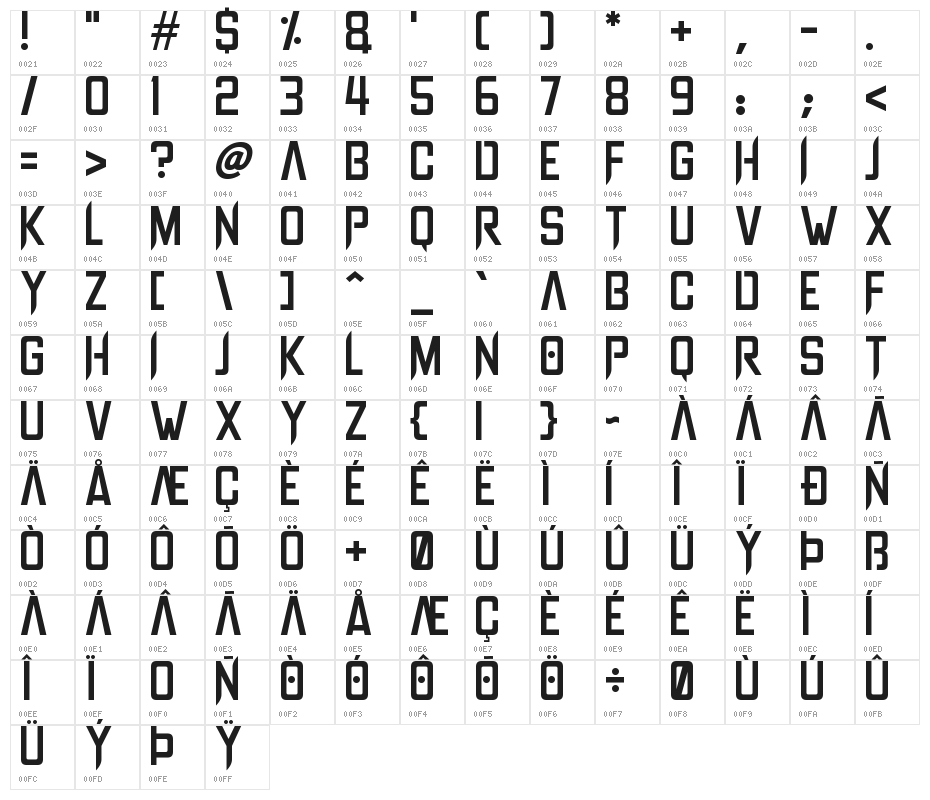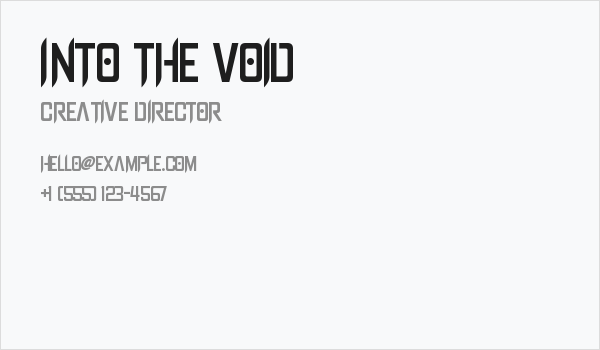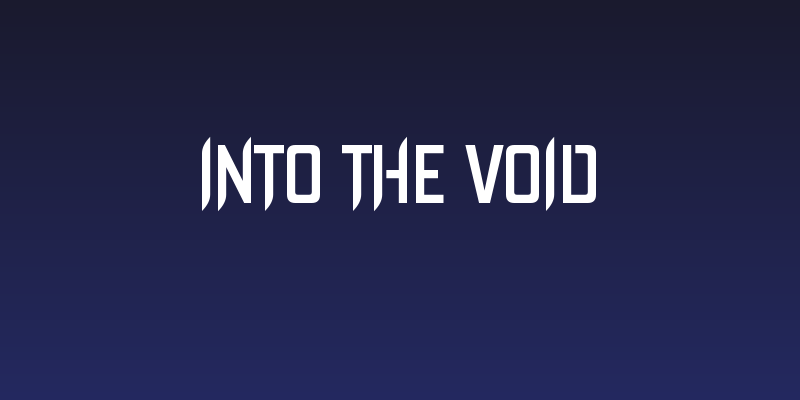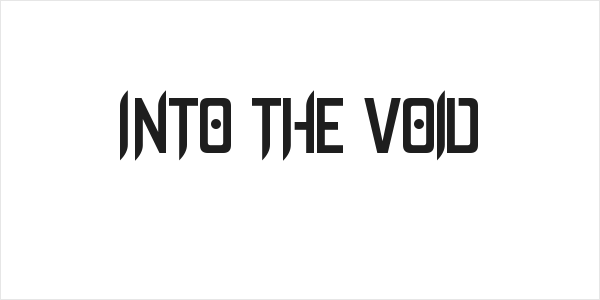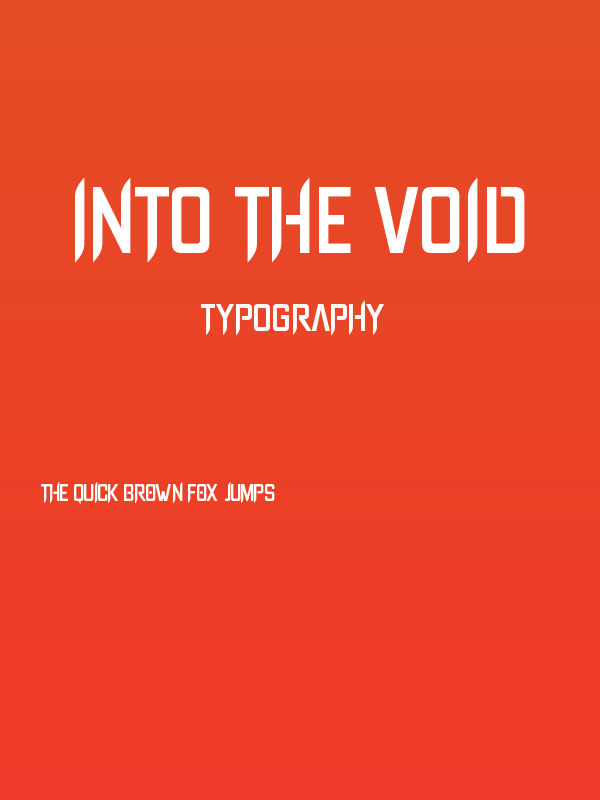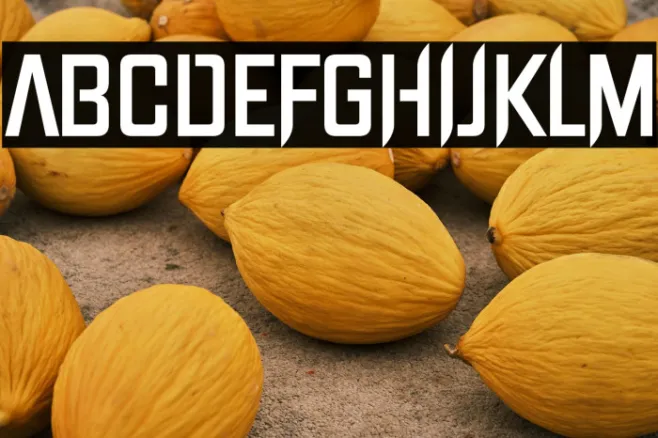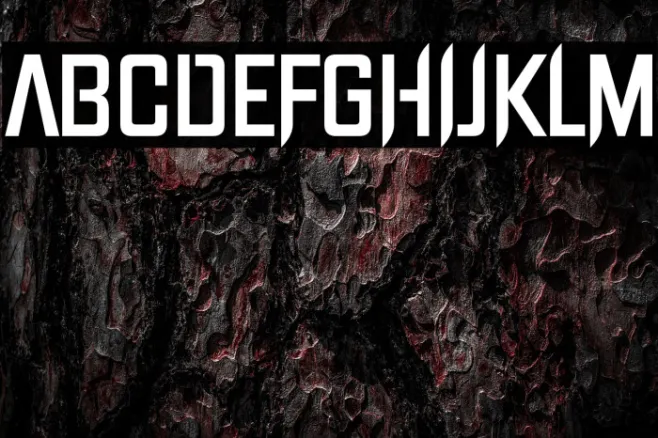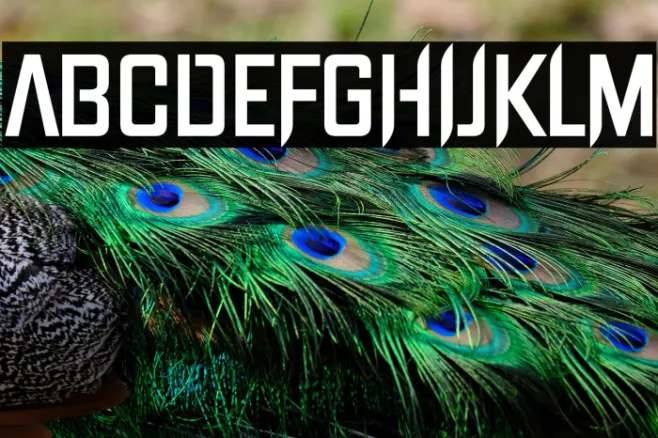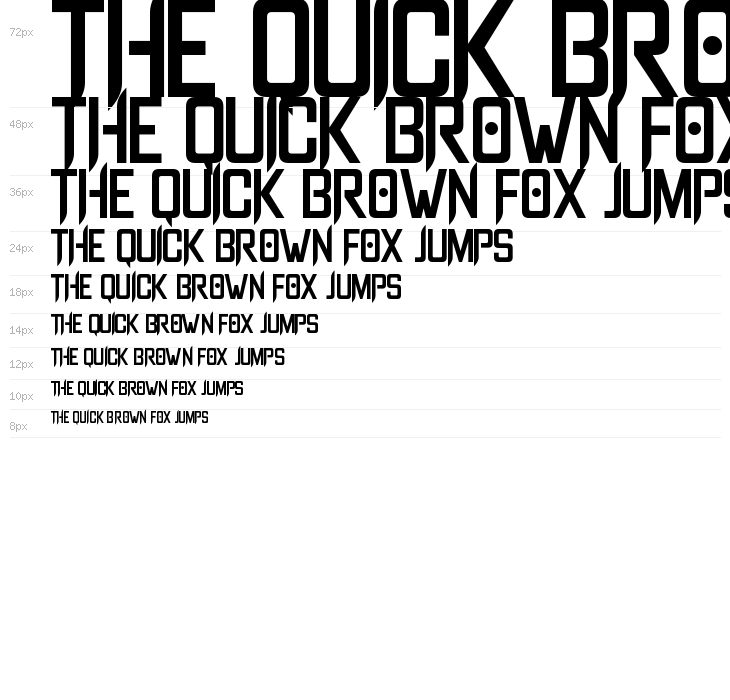
Into The Void Font
Into The Void Description
This font features a bold, futuristic design with sharp angles and geometric shapes. The uppercase letters are distinct with a strong presence, while the lowercase maintains a consistent style, offering a cohesive look. Numbers are bold and easily readable, making them suitable for various applications. Special characters are designed to match the overall aesthetic, ensuring uniformity across all text elements. The font's modern and edgy appearance makes it ideal for projects that require a contemporary and impactful visual style.
| Proposed Projects | Ideal for sci-fi themed designs, technology branding, video game titles, and modern posters. |